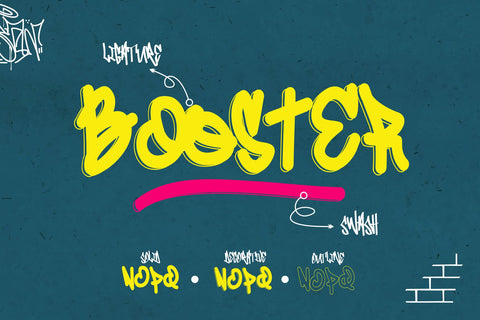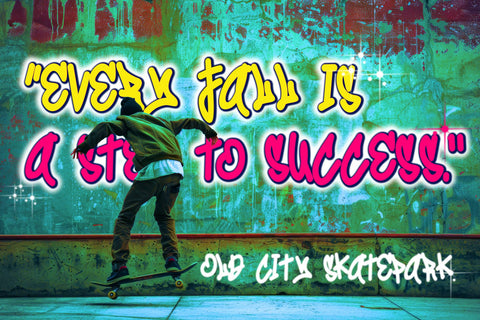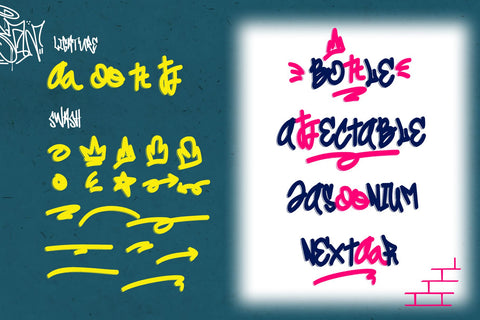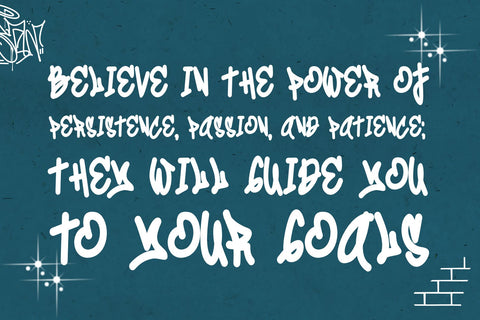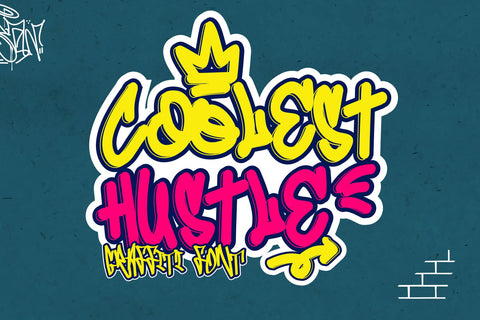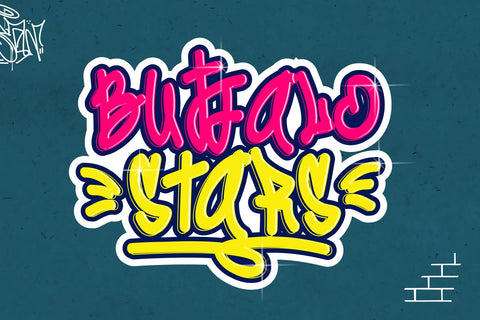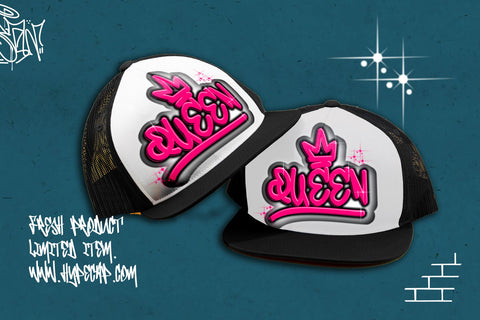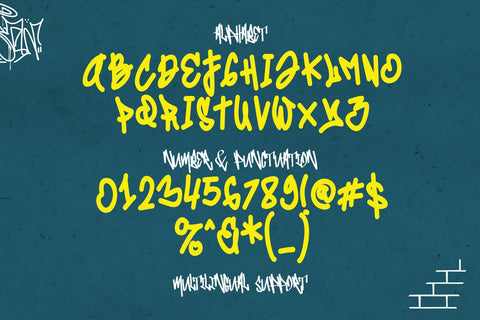
Coolest Hustle - Decorative Monoline Graffiti Font
Coolest Hustle is a decorative natural monoline graffiti typeface that brings a vibrant and dynamic aesthetic to your design projects. It includes three distinct font styles: decorative, solid/clean, and outline, making it incredibly versatile for a range of creative uses. The decorative style has intricate details, perfect for adding flair and personality, while the Solid/clean version offers a polished and sleek finish for a more refined look. The outline style stands out with bold, striking lines that provide contrast and depth.